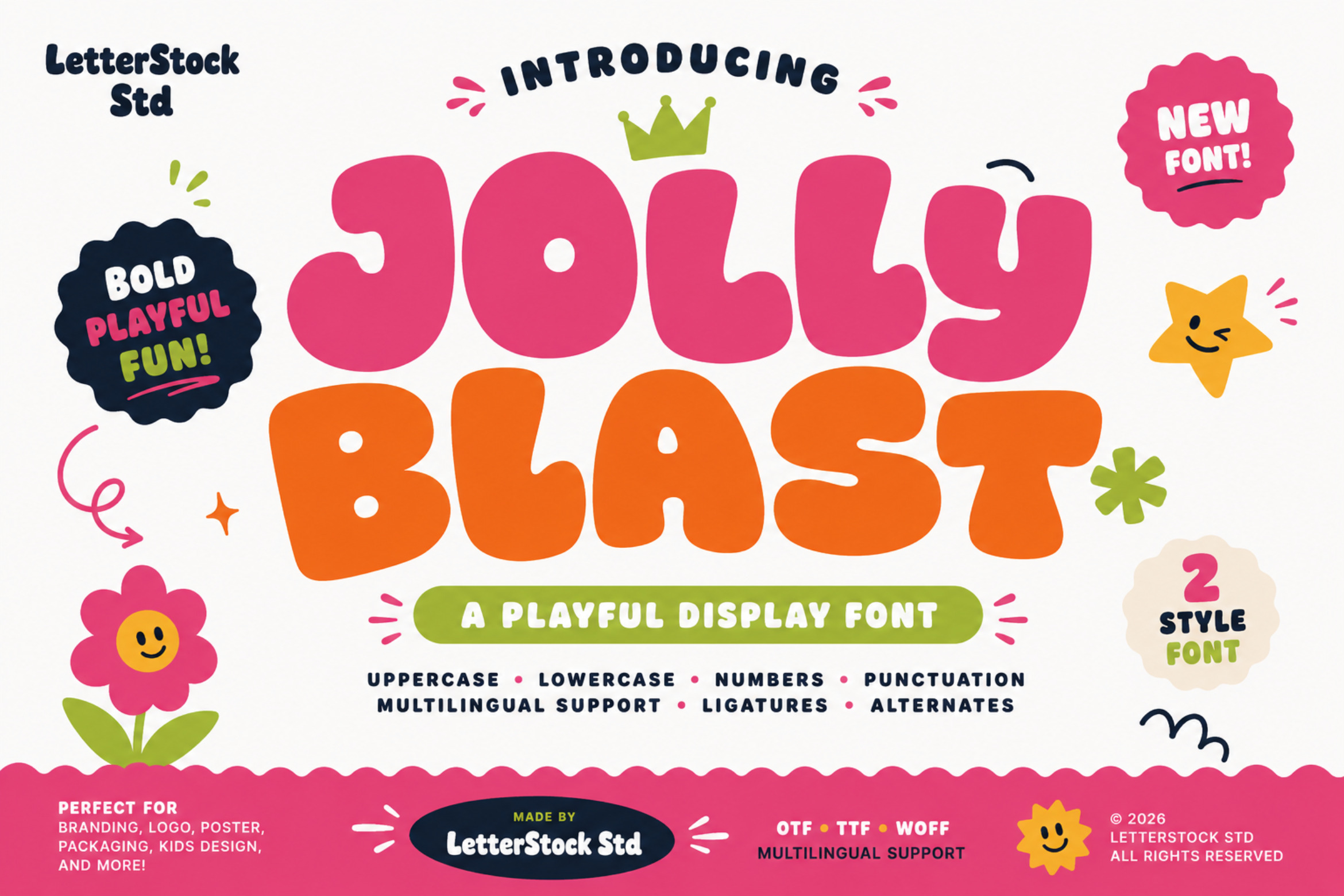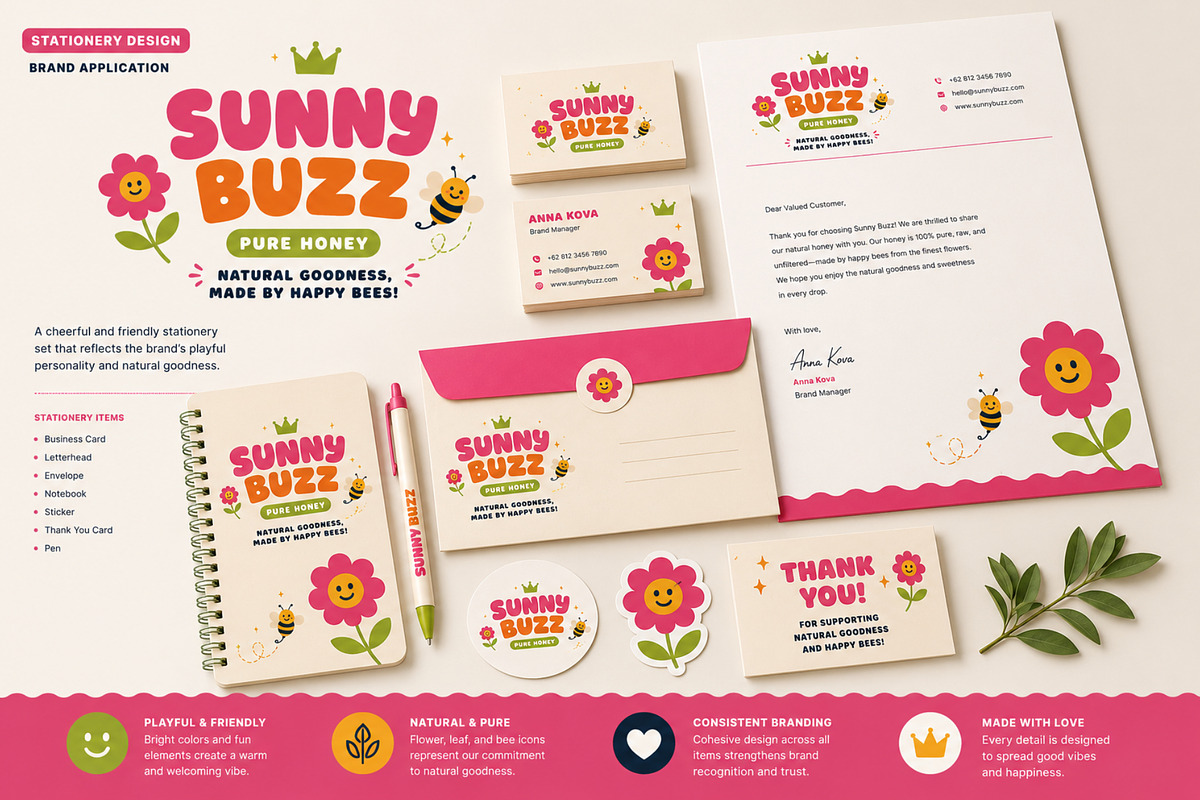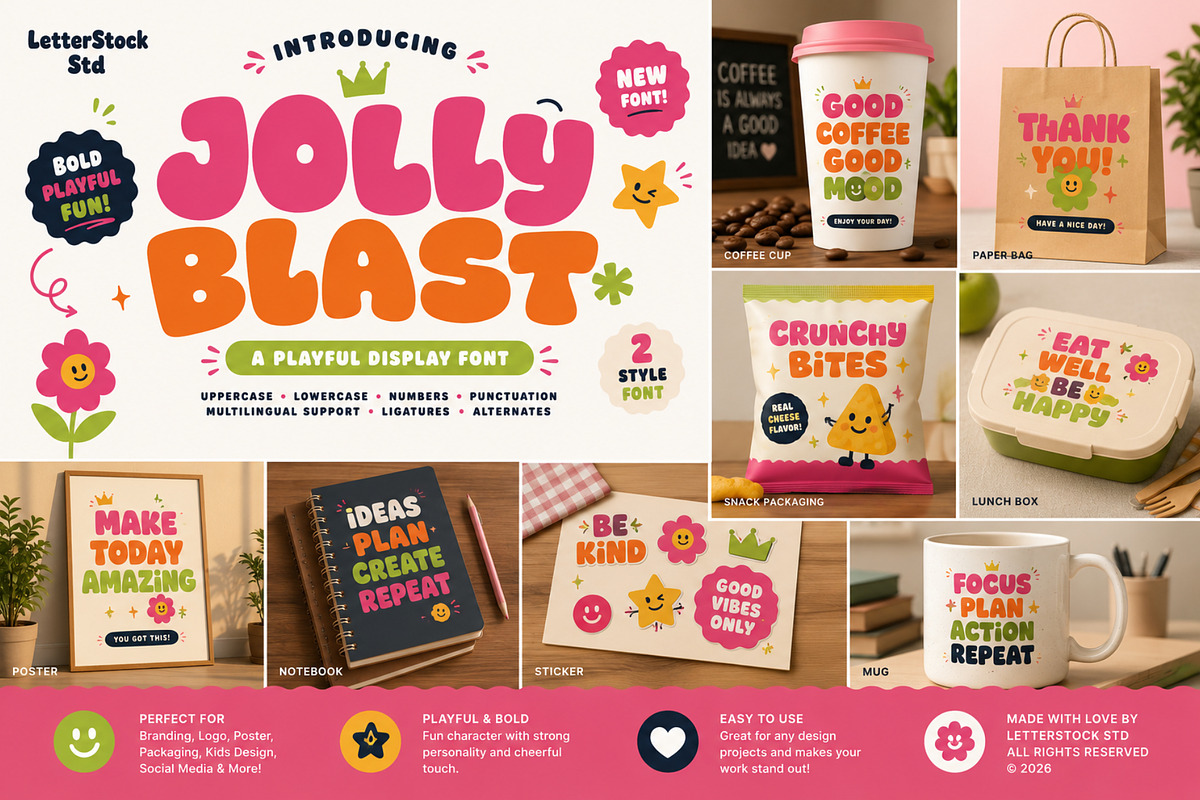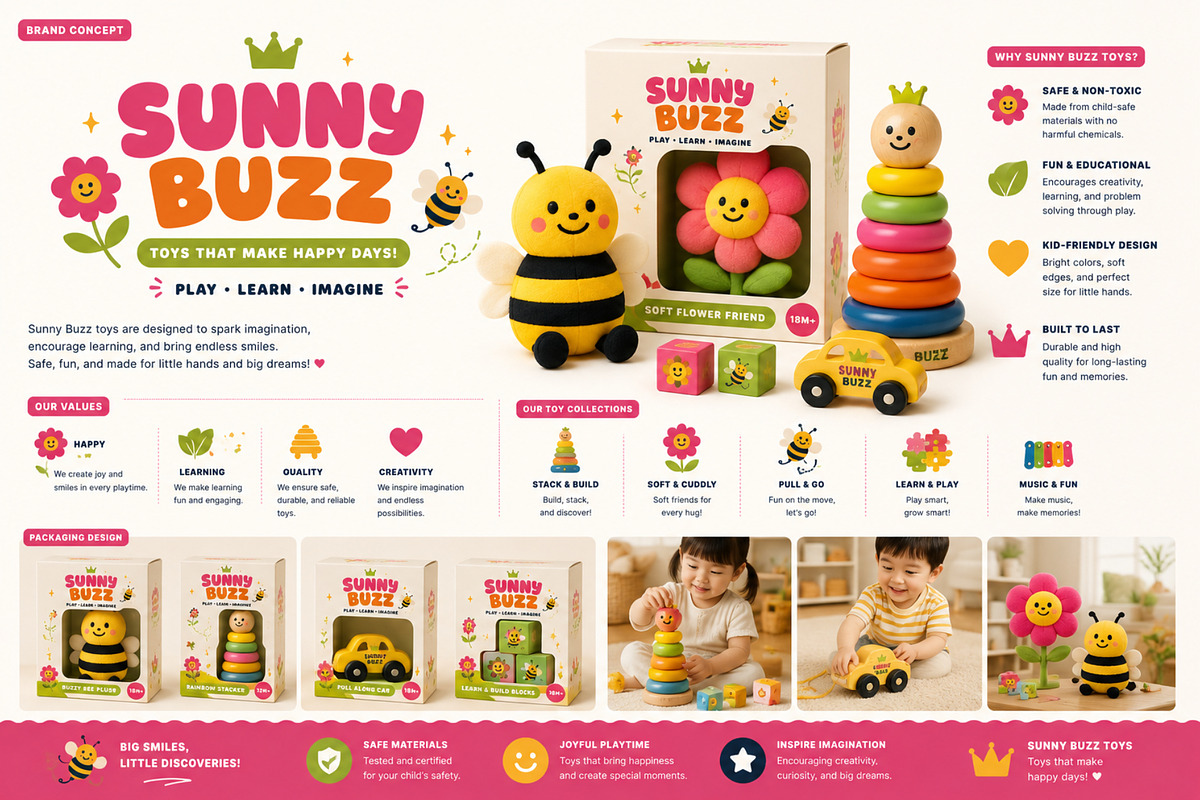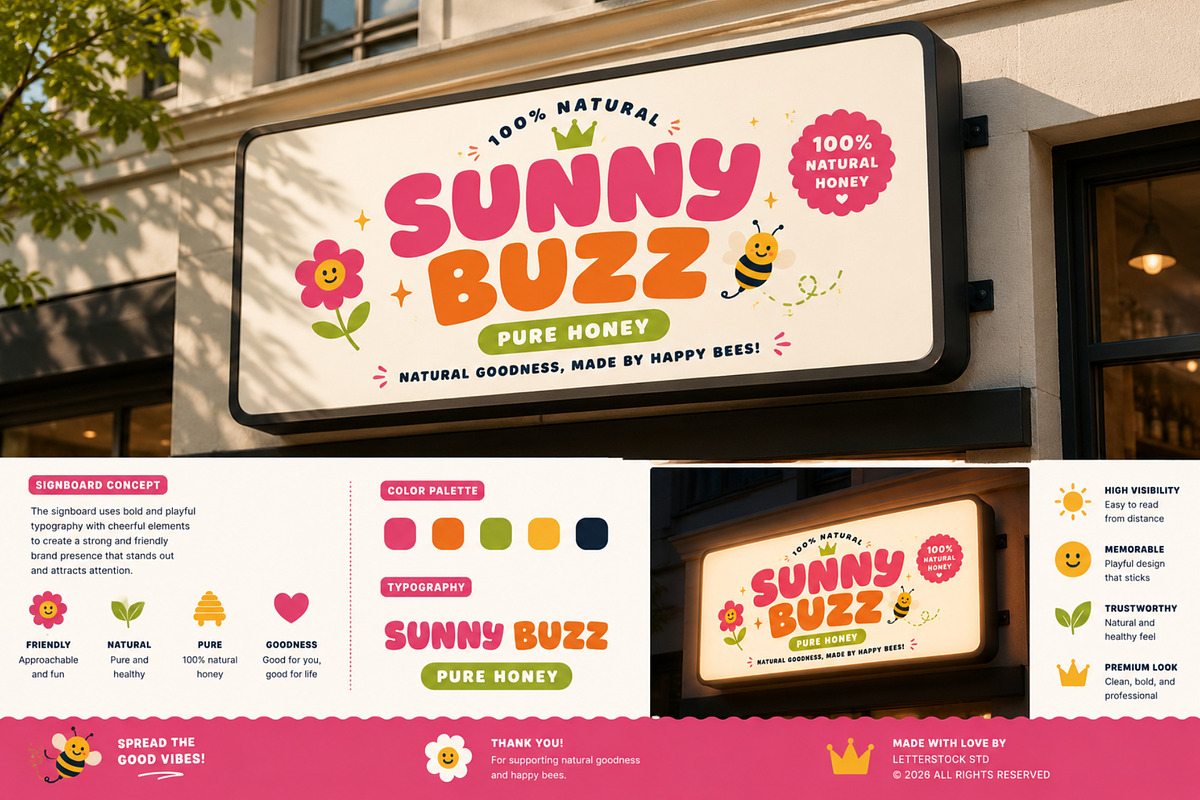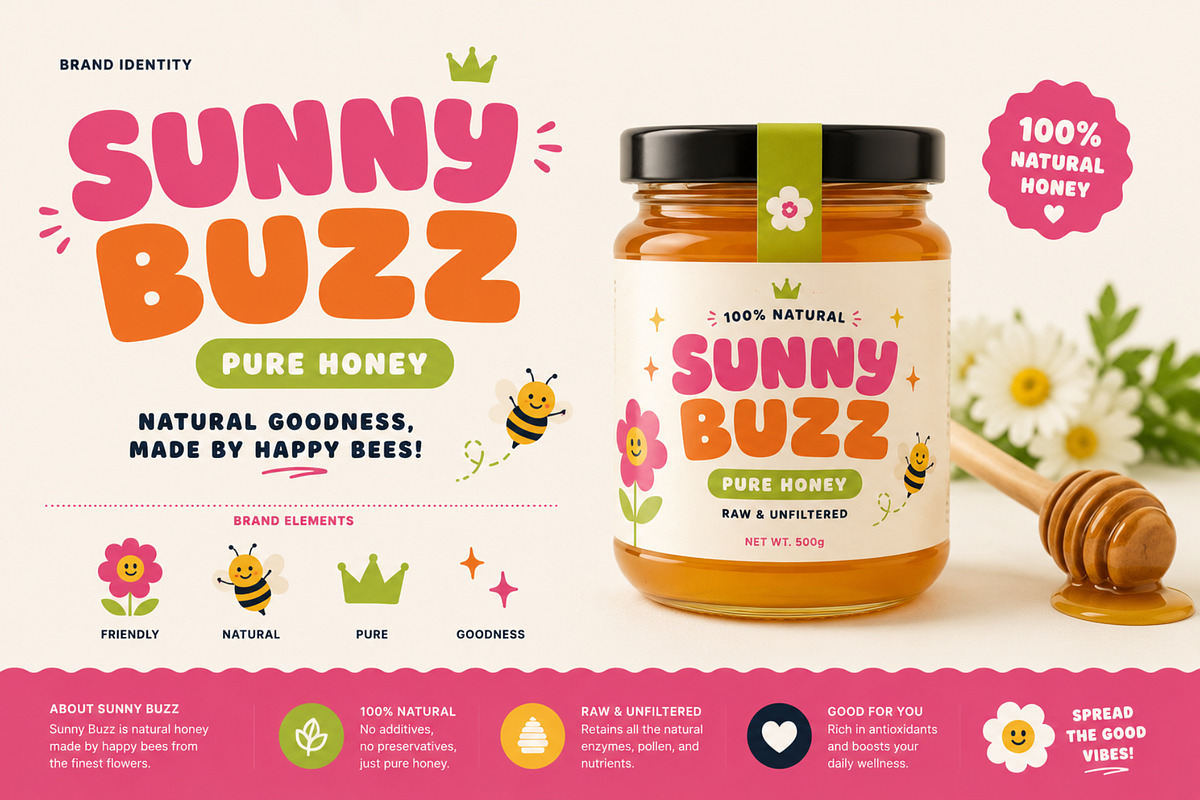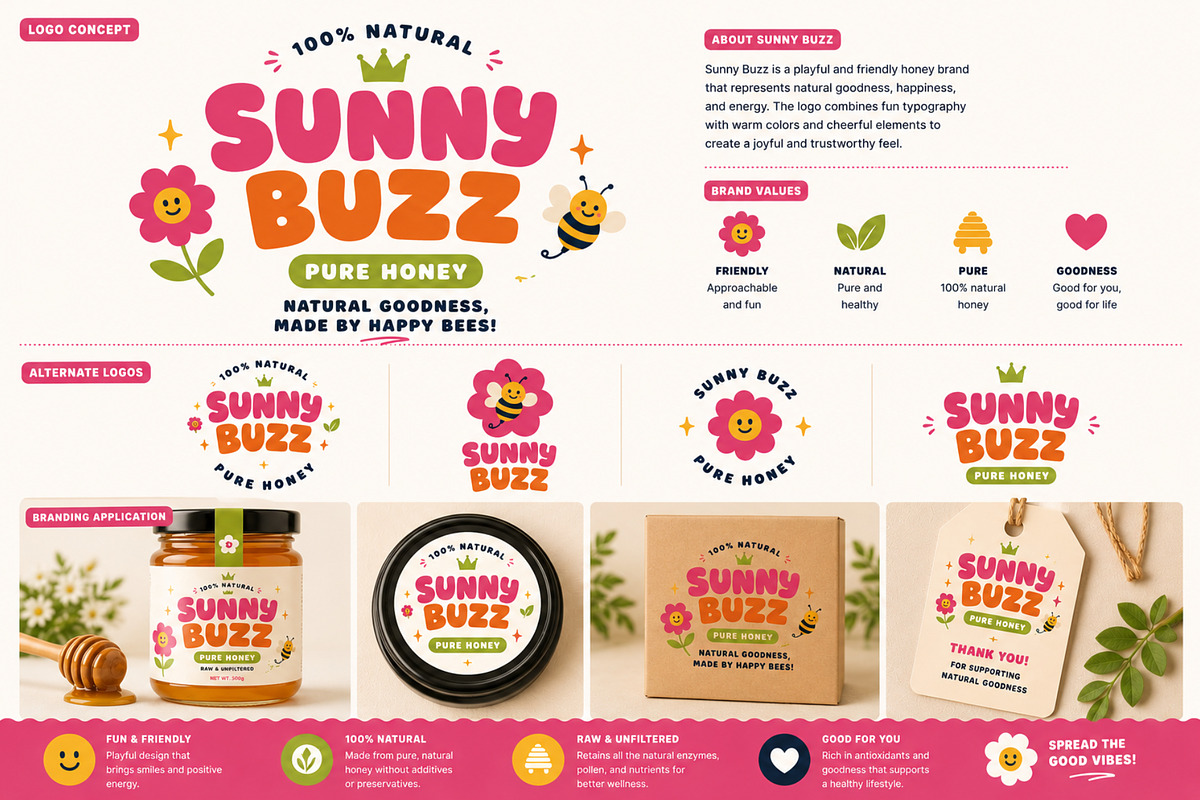
Jolly Blast - Decorative Font
Jolly Blast – Playful Display Font
Introducing Jolly Blast, a bold and cheerful display font designed to bring joy, energy, and personality to your creative projects. With its chunky letterforms, smooth curves, and playful character, Jolly Blast instantly creates a fun and friendly visual impact.
Whether you're creating branding materials, product packaging, social media graphics, children's projects, posters, invitations, or eye-catching headlines, Jolly Blast helps your designs stand out with a bright and happy vibe.
The font comes in 2 unique styles, giving you more flexibility to mix, match, and create playful typography compositions.
Why You'll Love Jolly Blast
Bold and playful display font
Fun, friendly, and cheerful character
Perfect for kids-themed and family-oriented designs
Easy to read while maintaining a unique personality
Ideal for headlines, logos, and attention-grabbing typography
Includes alternates and ligatures for a more natural look
* Branding & Visual Identity
* Logo Design
* Product Packaging
* Children's Book Covers
* Educational Materials
* School Projects
* Toy Branding
* Party Invitations
* Greeting Cards
* Posters & Flyers
* Social Media Graphics
* YouTube Thumbnails
* Website Headers
* Advertising Campaigns
* Craft and DIY Projects
* Printable Designs
Jolly Blast is the perfect choice when your project needs a playful, energetic, and memorable display font that captures attention and spreads happiness.
Create something fun, bold, and unforgettable with Jolly Blast!